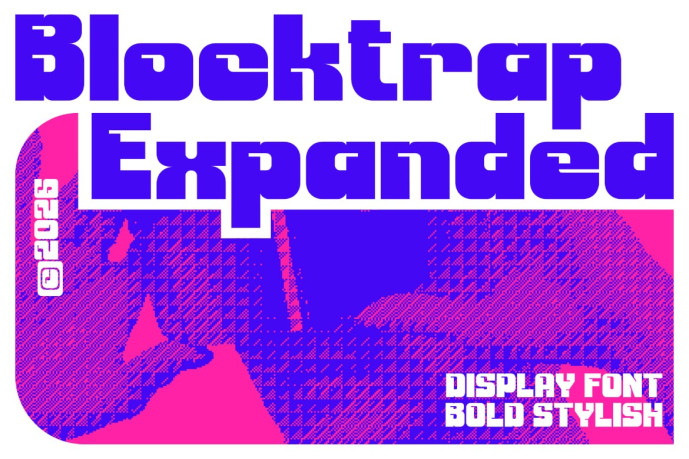
Blocktrap Expanded Font
Blocktrap Expanded is a bold expanded display font built for maximum impact. Featuring wide proportions, chunky geometric shapes, and distinctive trap-cut details, this typeface delivers a powerful industrial aesthetic with a modern experimental edge.
Designed to dominate headlines and visual identities, Blocktrap Expanded combines strong readability with an unmistakable personality. Its wide stance and sharp structural cuts create a bold presence that works perfectly across print and digital media.
Whether you’re designing gaming graphics, tech branding, music posters, packaging, sports campaigns, or futuristic visual identities, Blocktrap Expanded helps your typography stand out with confidence and attitude.
Key Features
Bold expanded display font
Wide geometric letterforms
Distinctive trap-cut details
High-impact headline style
Modern industrial aesthetic
Strong readability
Perfect for branding and posters
Bold futuristic personality
Ideal for print and digital